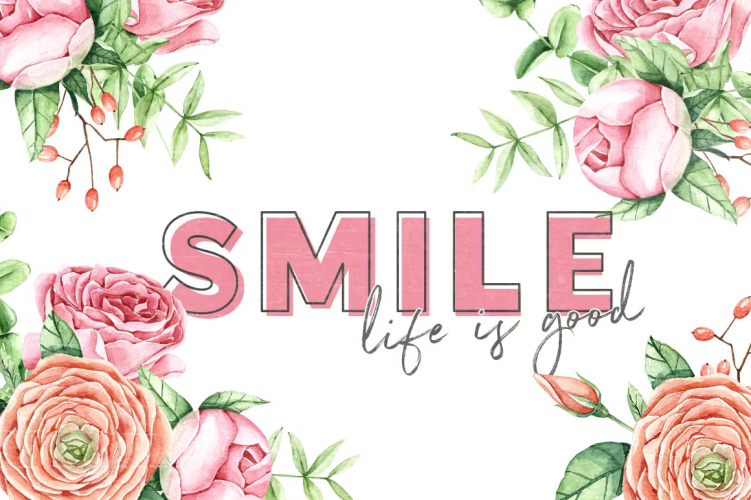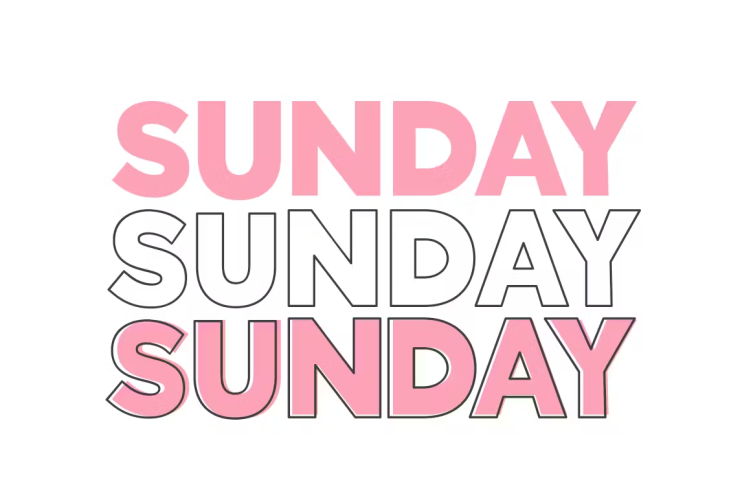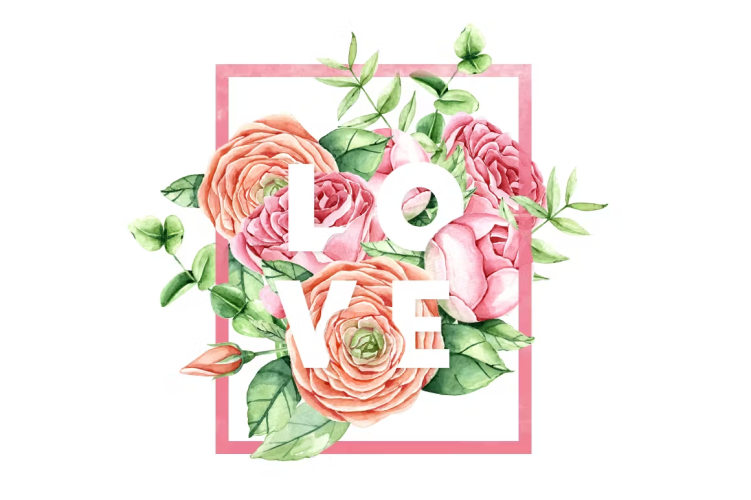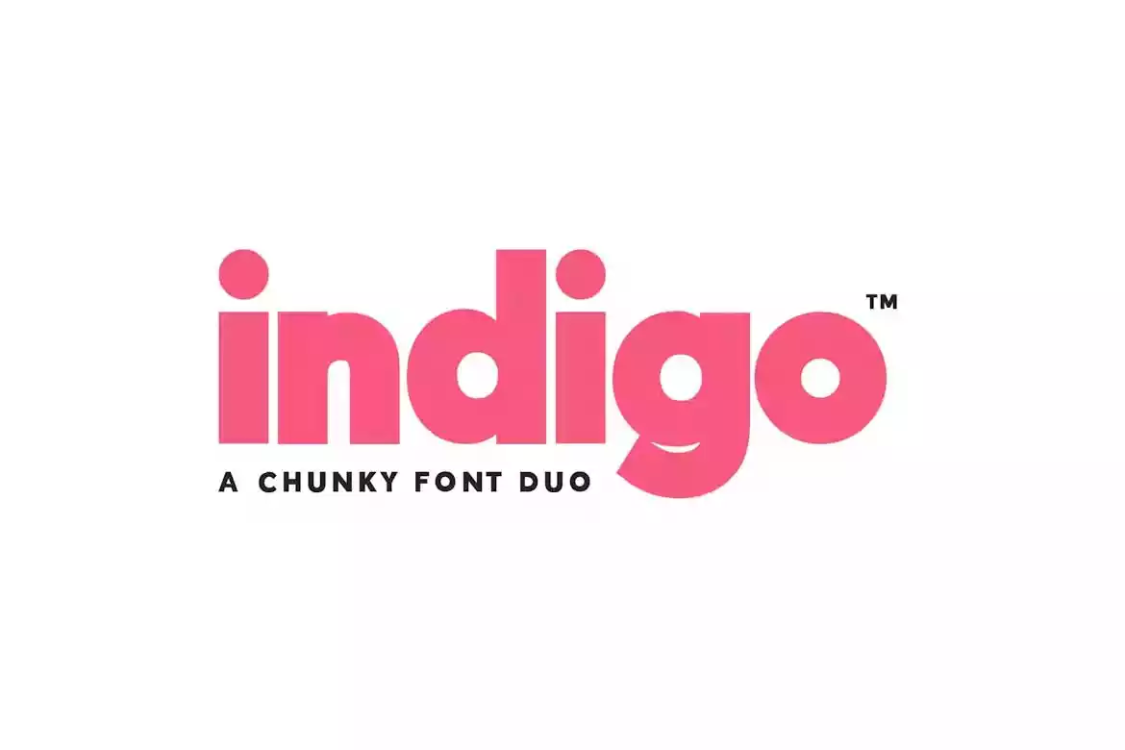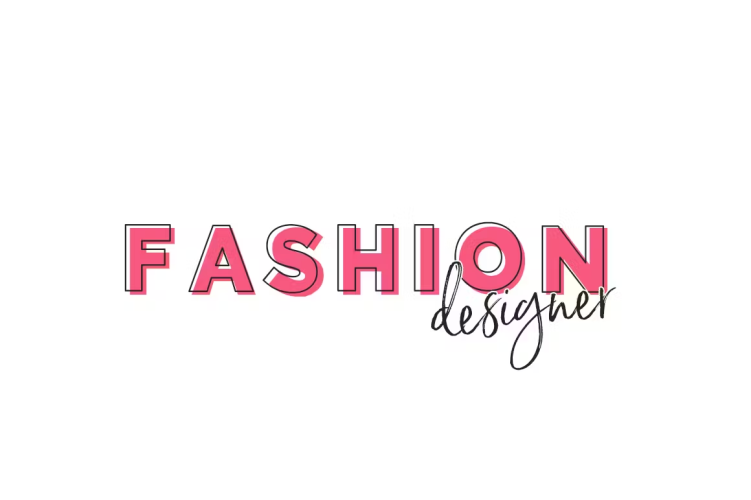
Indigo Font
We present our new font pair, Indigo. This combo consists of two distinctive fonts, Indigo Regular and Indigo Outline, which allow you to work with eye-catching and subtle imagery. Pile them together for a unique touch, or stack them up one atop the other for colour explosions. Indigo is an excellent addition to texts such as headers, Instagram posts, logos, web design, or other sorts of stuff.
This font supports English, French, Spanish and German characters.
Indigo Font is a Sans Serif Fonts font that brings a professional and versatile look to your projects. We present our new font pair, Indigo.